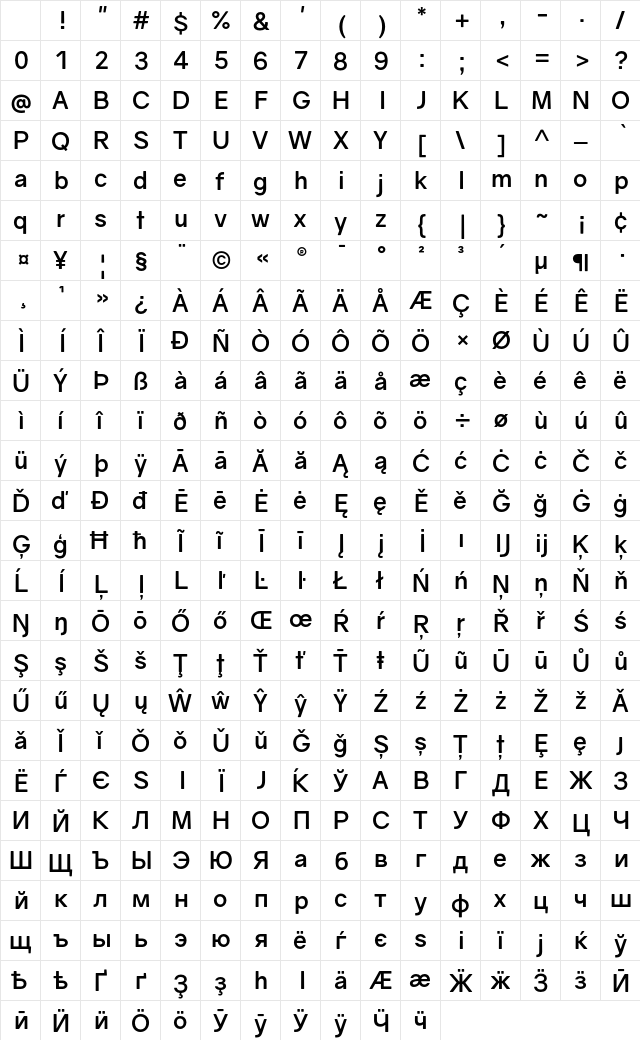
Gravity is a composed and adaptable typeface that performs quietly and consistently across a wide range of design contexts. Its bold stroke weight gives it real presence on the page.